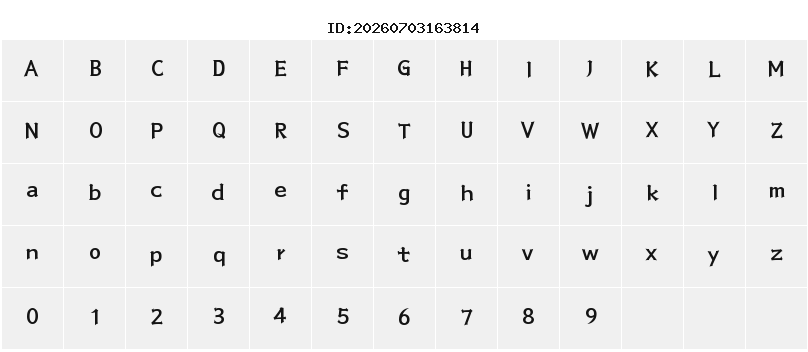
424-上首侠客体 Preview
• Font Name: 424-上首侠客体
• Font ID: 424-上首侠客体
• Full Font Name: 424-上首侠客体
• Version: Version 4.00;March 4, 2026;FontCreator 13.0.0.2613 64-bit
• PostScript Name: 424-SSXiaKeTi
• Character Count: 7601
• Manufacturer: 上首造字
About 424-上首侠客体.ttf
424-上首侠客体.ttf is a modern, elegant sans-serif font designed for ultimate readability and visual harmony. Perfect for branding, headlines, web design, and print materials.